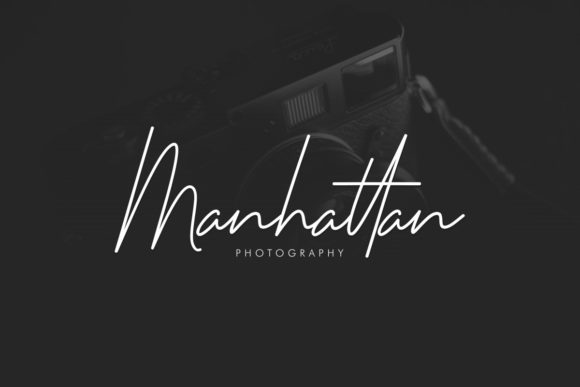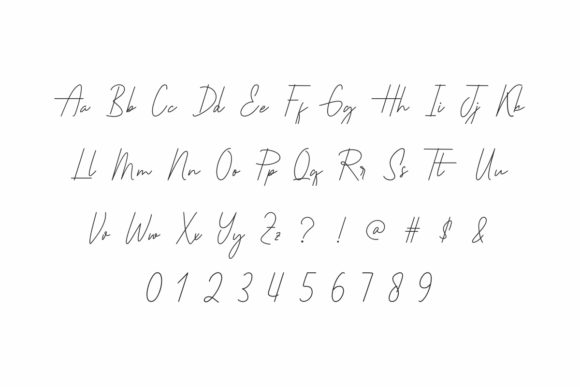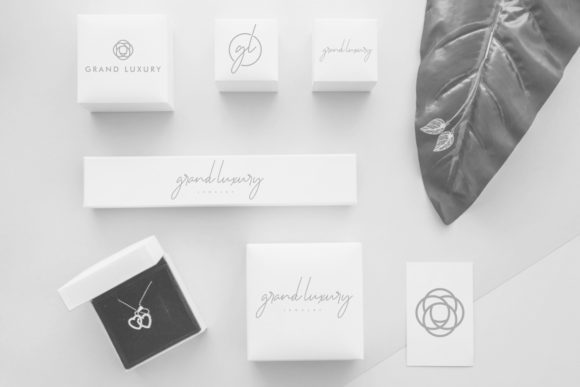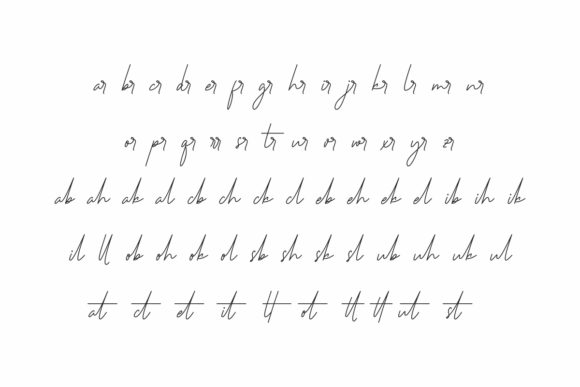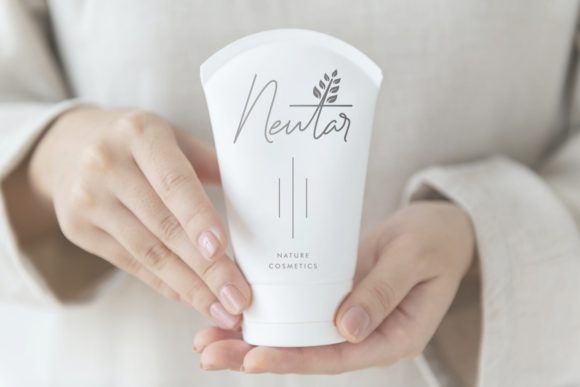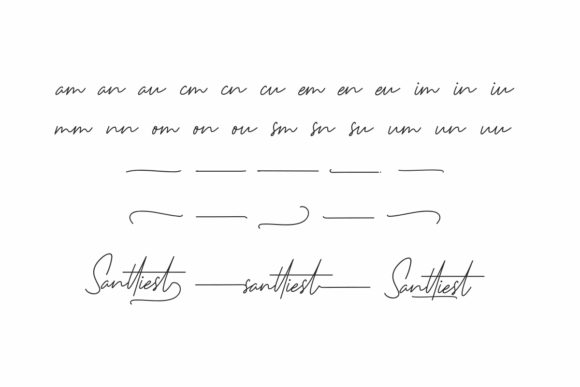
Introduction to Santtiest Font
Have you ever been stuck in the middle of a creative project, desperately searching for the perfect font to bring your vision to life? You know, that elusive “aha” moment when everything clicks into place, and your design starts to feel truly special? For designers, this is a moment of pure bliss – and the right font can make all the difference. That’s exactly what we’re excited to introduce you to today: the Santtiest Font.
This stylish and delicate handwritten font is a game-changer for any design project. With its clean, thin, and smooth vibe, it’s the perfect addition to any creative endeavor. Whether you’re working on a logo, a poster, or a social media graphic, the Santtiest Font is sure to elevate your design to the next level.
Key Features of Santtiest Font
- Unique, hand-drawn design with a playful and whimsical feel, perfect for creative projects and design resources.
- Designed with a focus on creative freedom, the Santtiest Font is perfect for designers seeking a unique and high-quality design resource.
Honest Review: Santtiest Font
As a designer, I’m always on the lookout for high-quality design resources to elevate my creative projects. The Santtiest Font has caught my attention, and I’m excited to share my honest review with you.
- ✨ High-quality typography: The Santtiest Font boasts beautiful, intricate details that make it perfect for design projects that require a touch of elegance.
However, I do have some limitations to mention:
- ⚠️ Limited font styles: While the Santtiest Font is stunning, I wish there were more font styles available to cater to different design needs.
- ⚠️ Not ideal for bold text: The font’s delicate nature makes it less suitable for bold or large text, which can be a limitation in certain design projects.
Overall, I’m impressed with the Santtiest Font, and I think it’s a valuable addition to any designer’s toolkit. Its high-quality typography and transparent background make it an excellent choice for creative projects. While it has some limitations, I believe it’s a great resource to have, and I’d recommend it to fellow designers looking for a unique and elegant font.
Santtiest Font
The Santtiest Font is perfect for a variety of creative projects, including:
- Posters
- Brochures